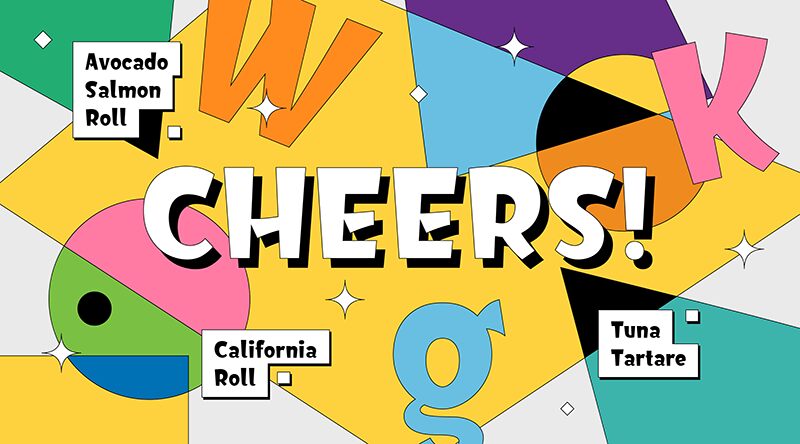
HF Cheers font by HyFont Studio is a charming cartoon display font with a rounded, thick, and friendly presence. Its bold weight and modern style make it stand out while maintaining an inviting, approachable feel. The playful character and smooth transitions of this free typeface give it an energetic and animated feel.
Designers can use HF Cheers in branding projects, product packaging, apparel printing, magazine titles, video subtitles, labels and tags design. The font works well in website headers or footers as well as in mobile apps user interfaces (UIs).